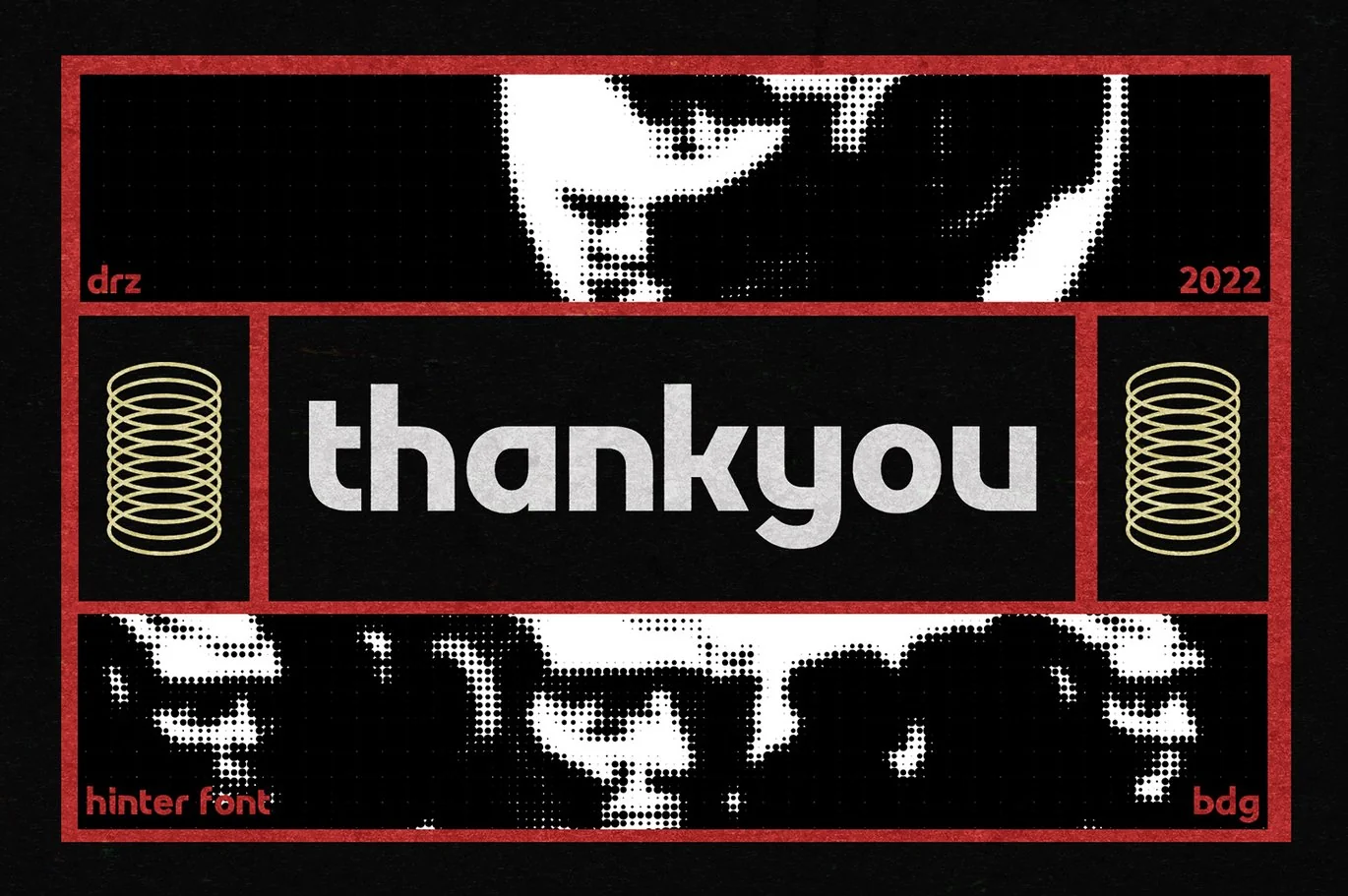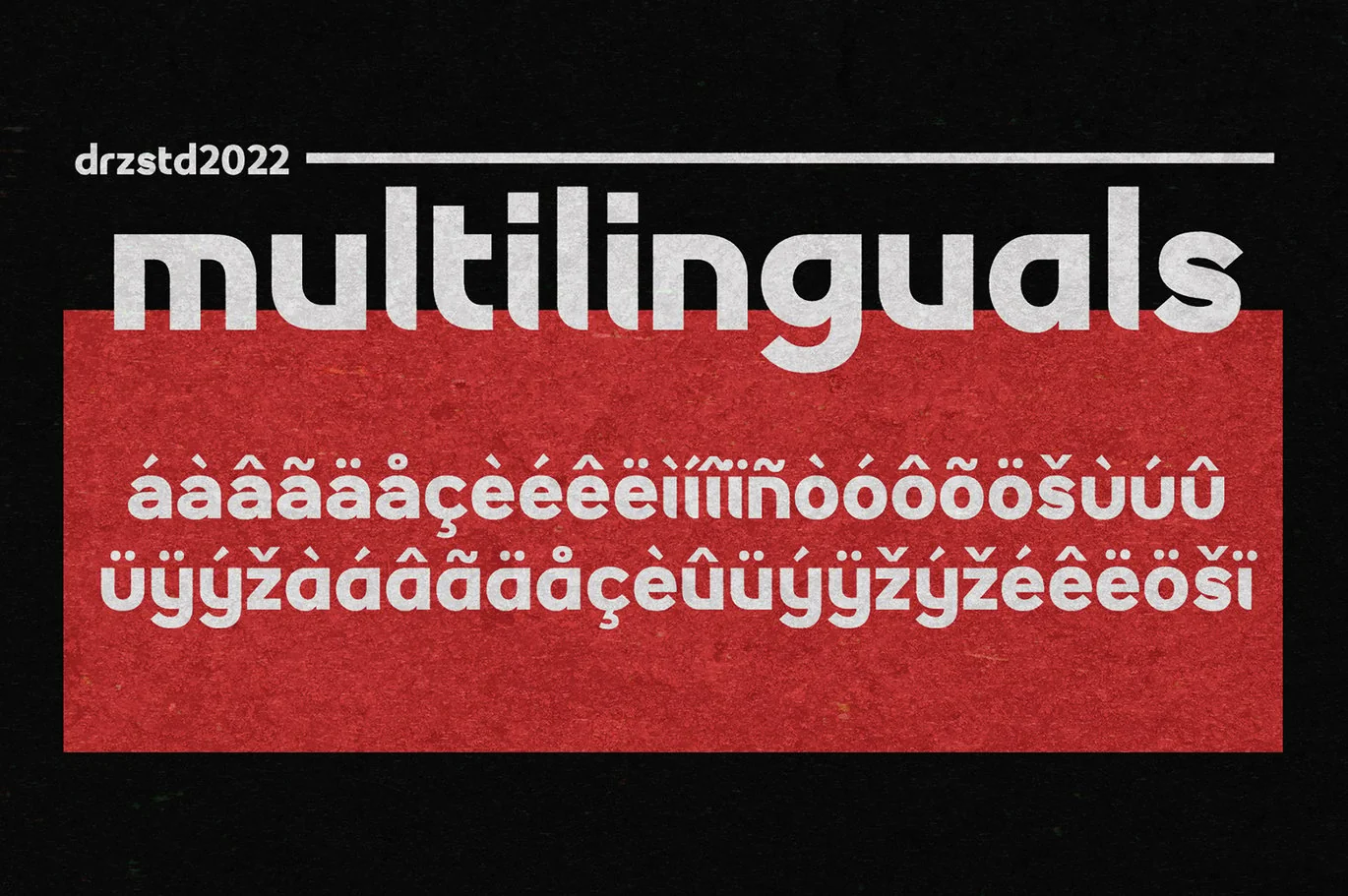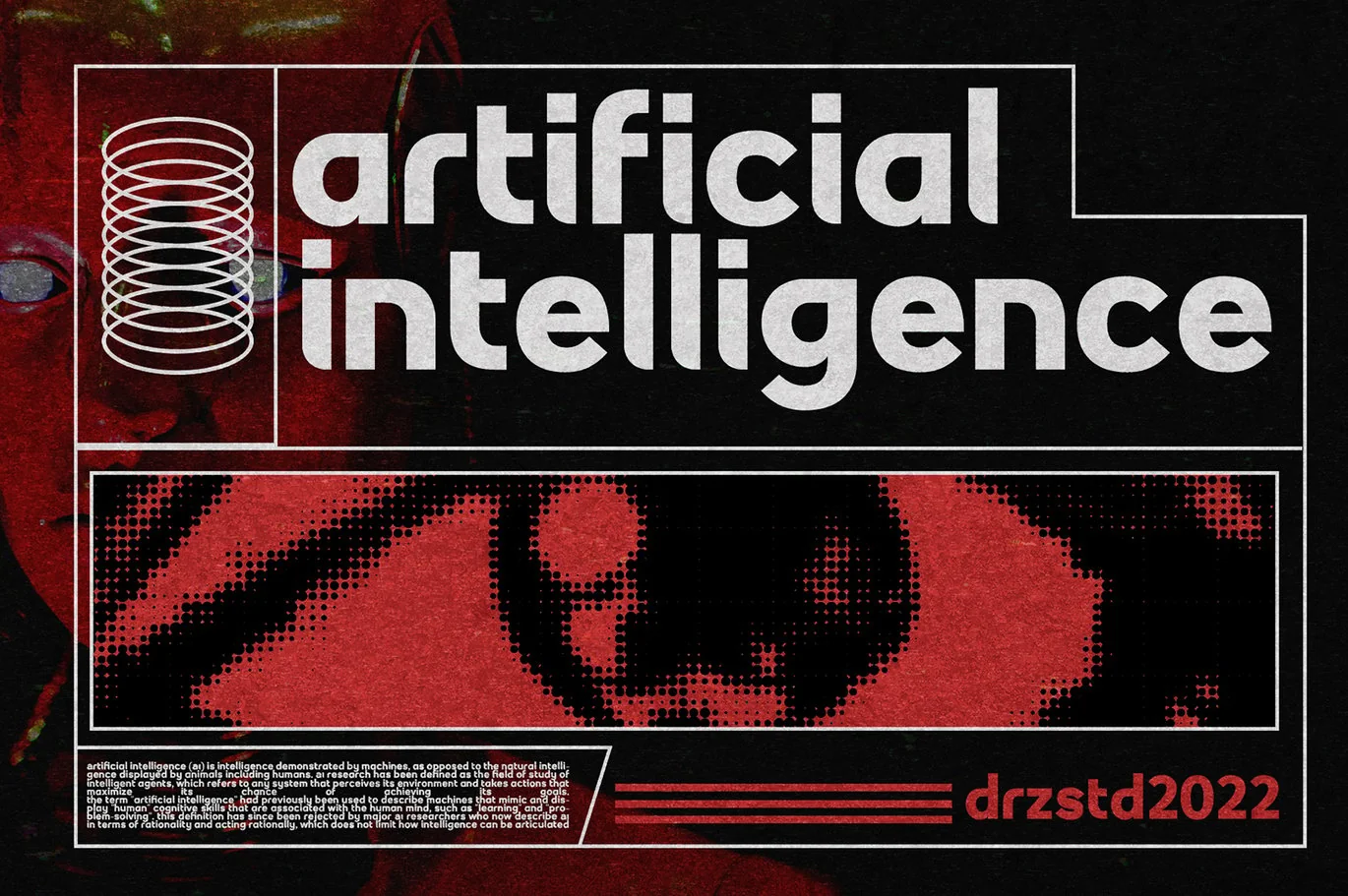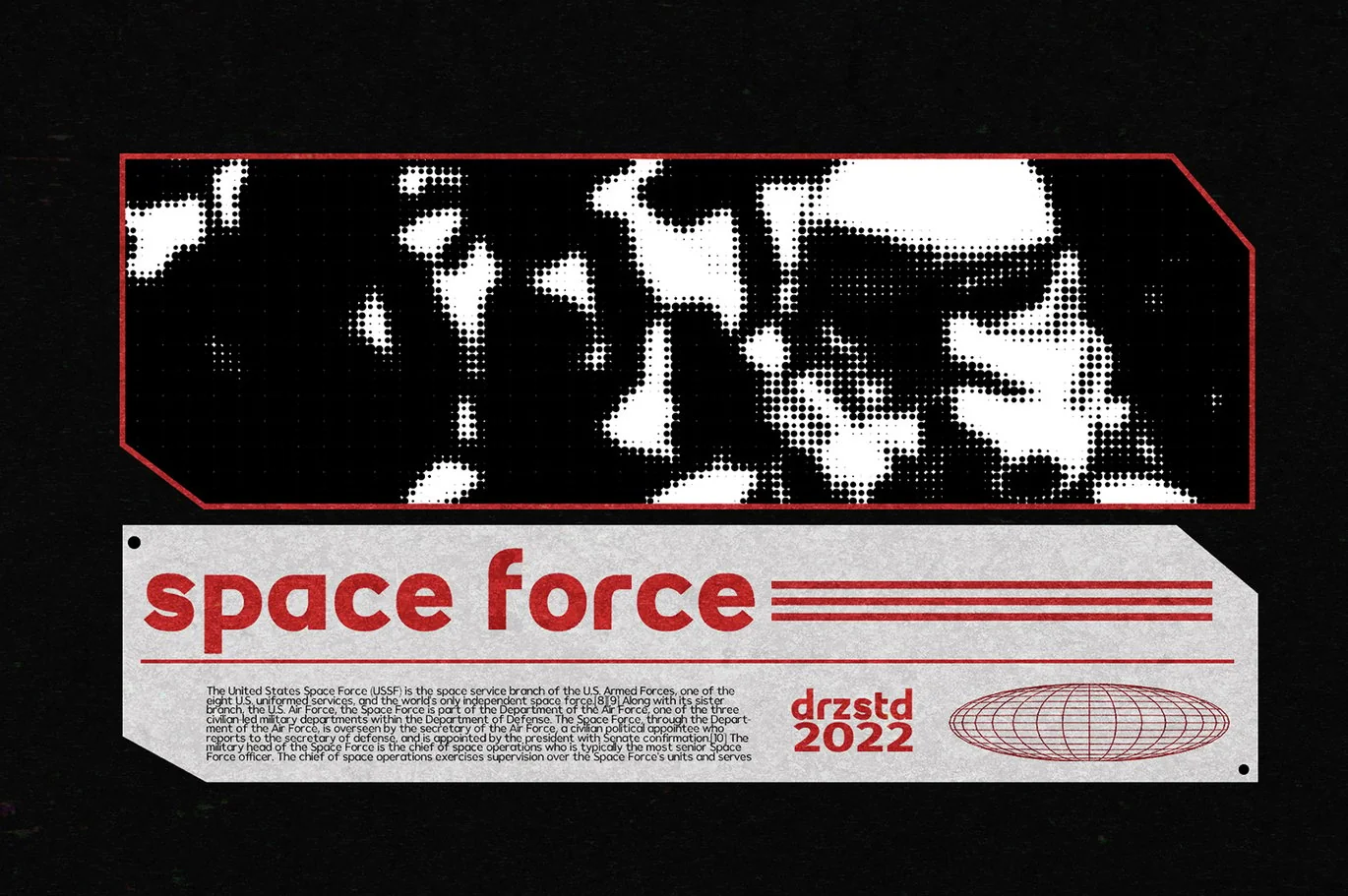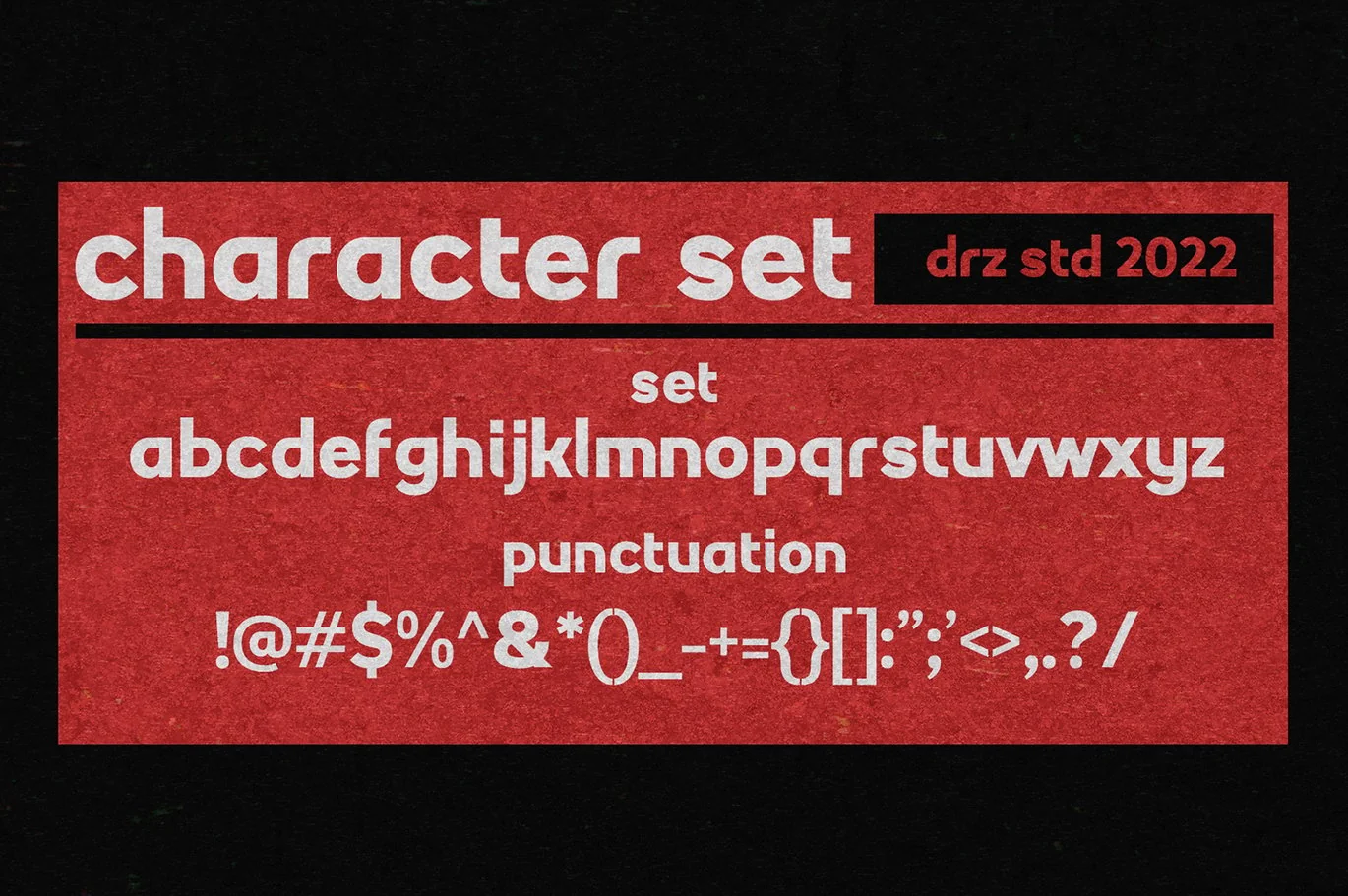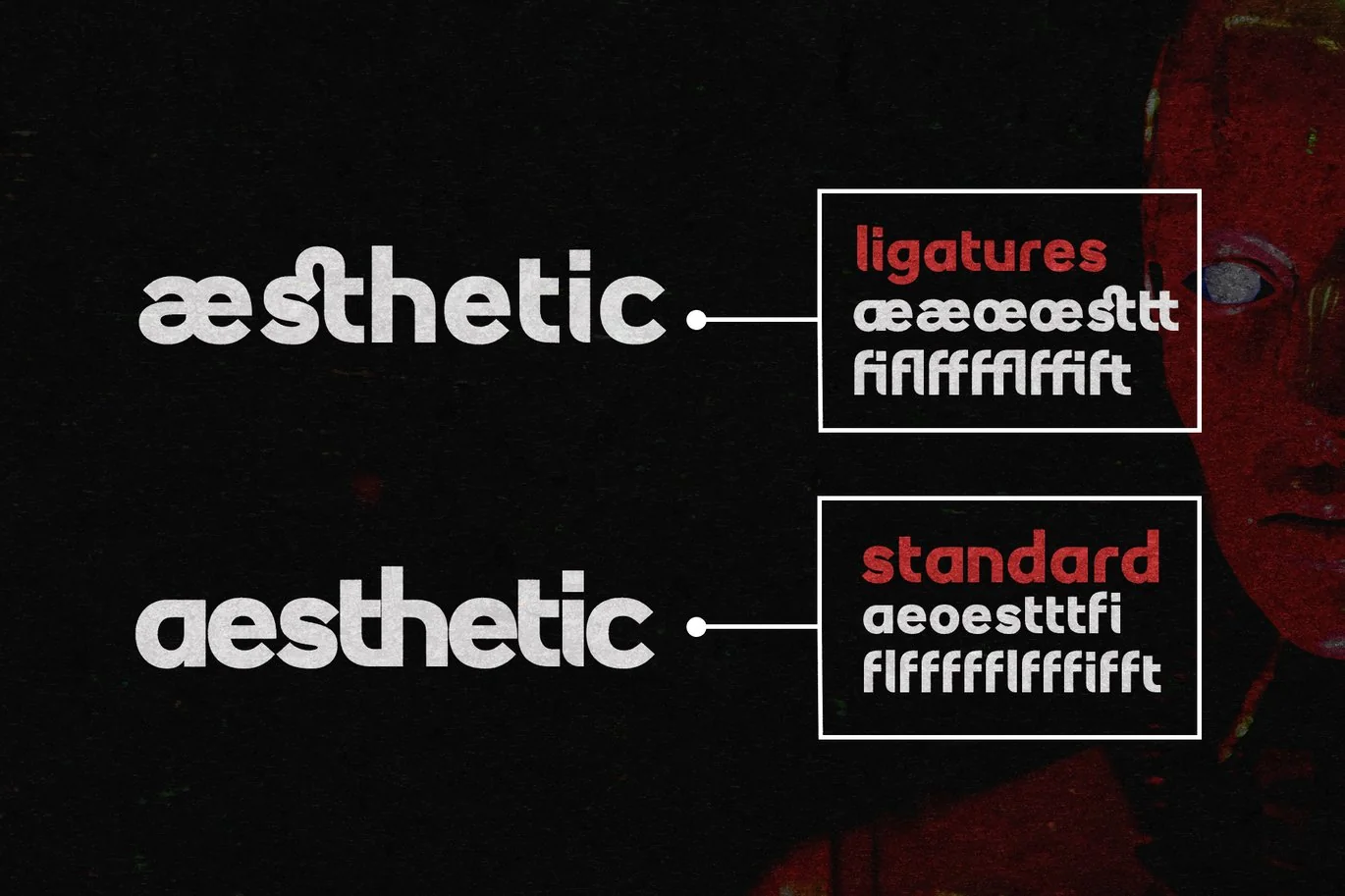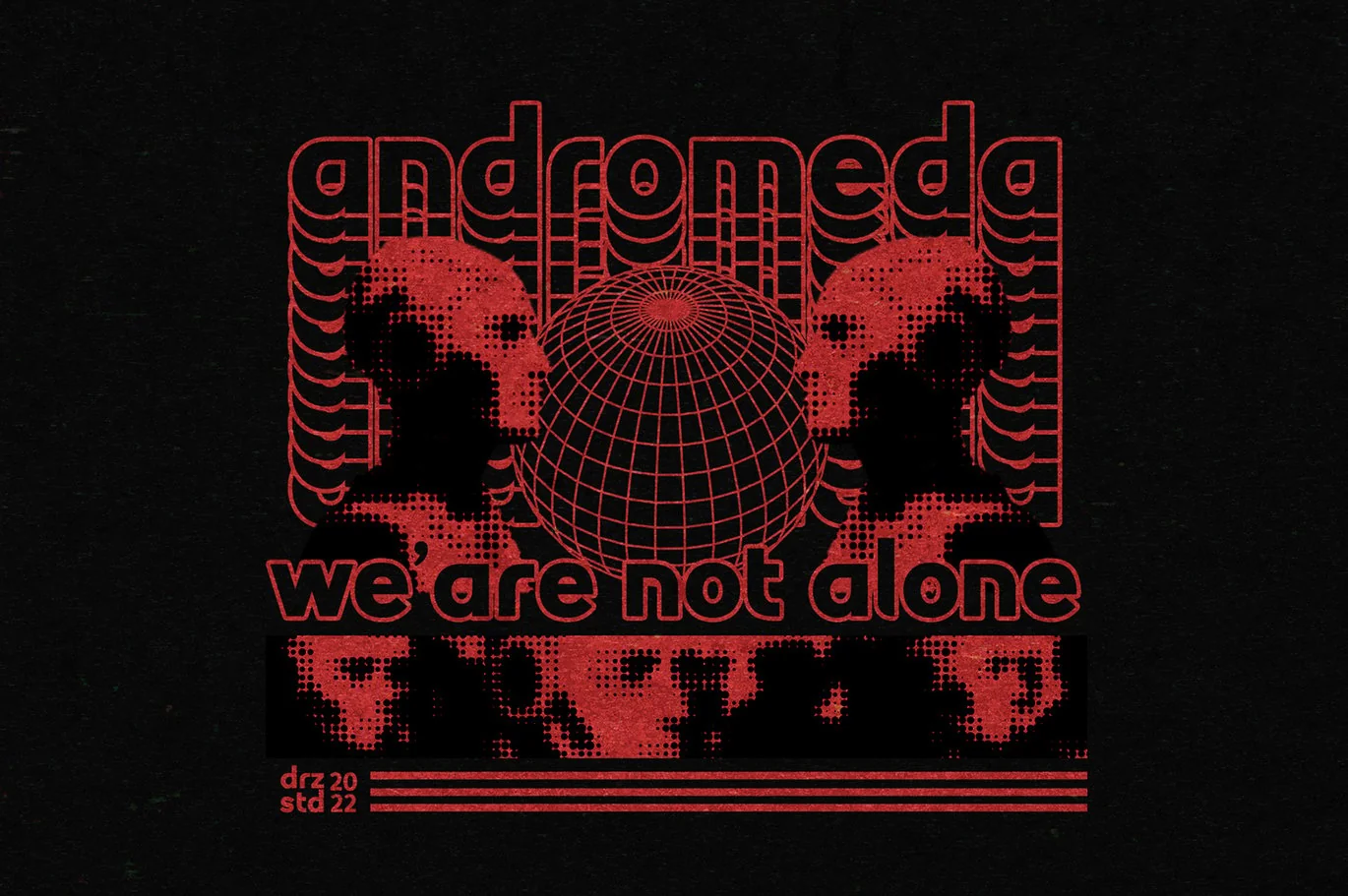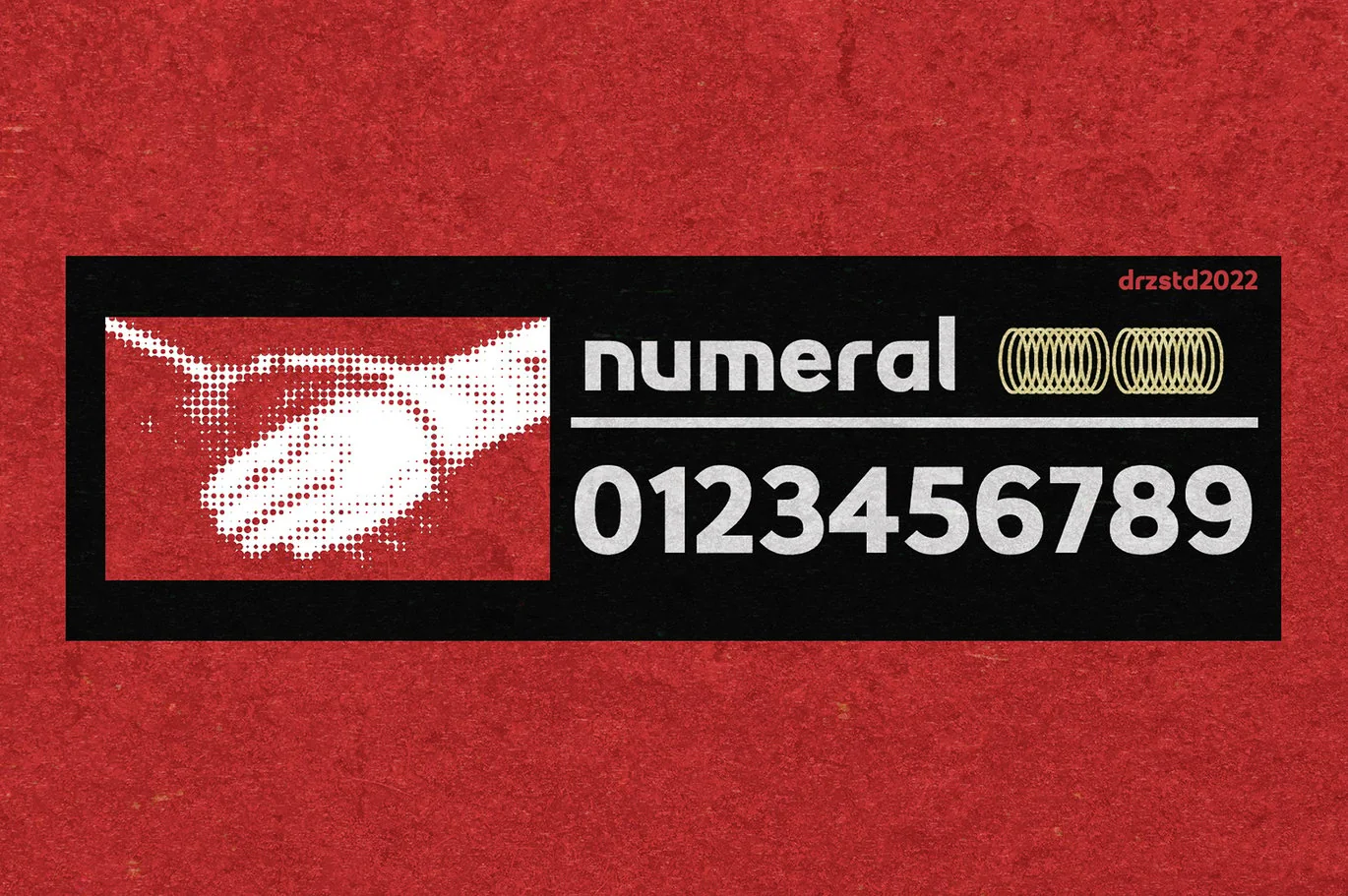
Hinter – Geometric Rounded Sans Serif Font
Hinter is Geometric Rounded Sans Serif Font from Drizy studio. Offering all the basic styles you will need for a project.
Hinter Features:
Lowercase
Numeral & Punctuation
Multilinguals & Ligatures